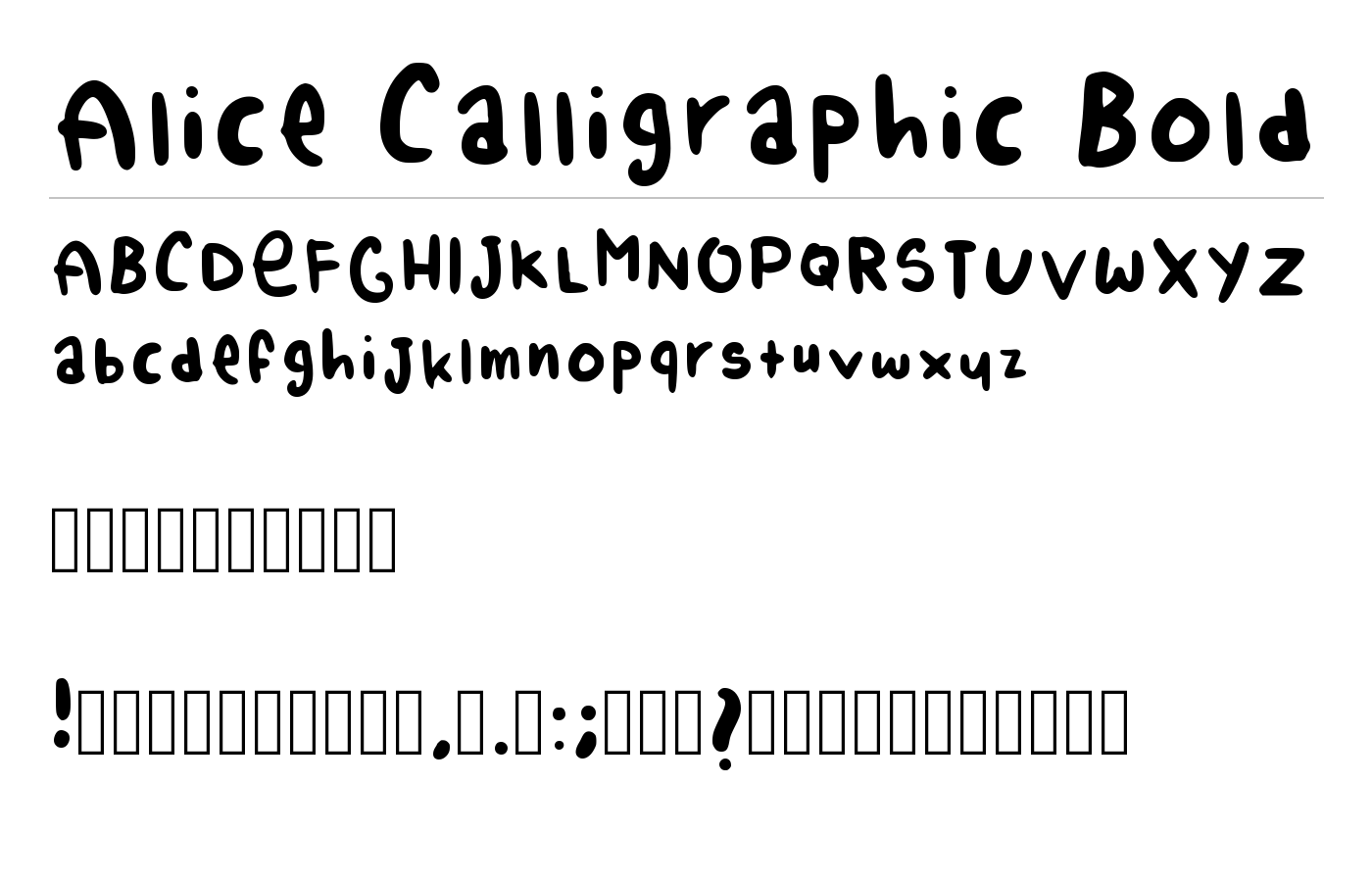
Alice Calligraphic Bold is a playful, bold handwritten font with a casual and friendly character. Its rounded, irregular letterforms and moderate x-height create an approachable and warm feel, making it ideal for creative projects, children's designs, and informal branding. This font works well in logos, headlines, and packaging where a fun and personal touch is desired.